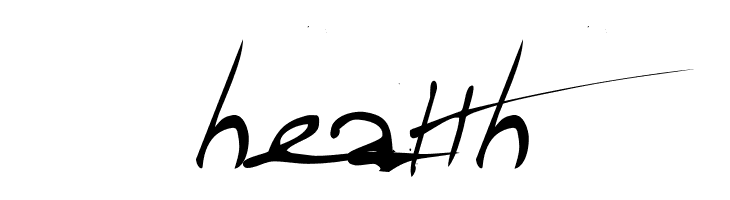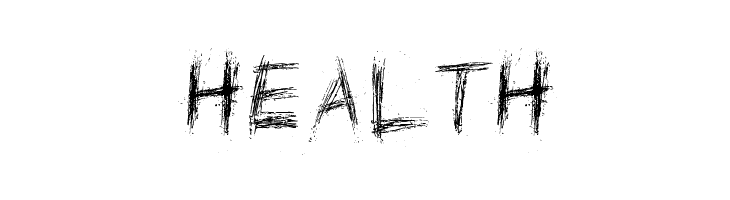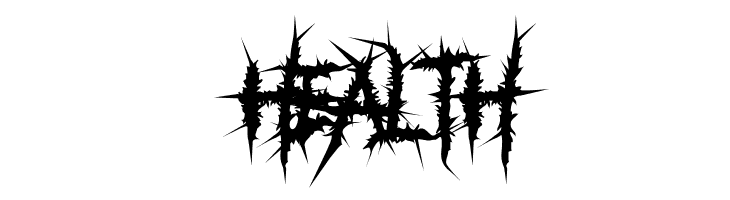
A lively, handwritten italic font with a playful and dynamic style.
A bold, hand-drawn font with an expressive, graffiti-like style.
A playful, brush-stroke inspired font with a hand-drawn aesthetic.
An ornate, decorative font with intricate floral motifs in each letter.
A bold, experimental sans-serif font with gaps and slants for enhanced memory retention.
A dynamic, expressive handwritten font with energetic strokes and fluid motion.
A distressed, hand-drawn font with a raw, edgy appearance.
A playful, handwritten-style font with fluid, organic strokes.
A bold, geometric stencil font with sharp, angular lines and cut-out sections.
A bold, thorny, and gothic font with intricate, jagged edges.